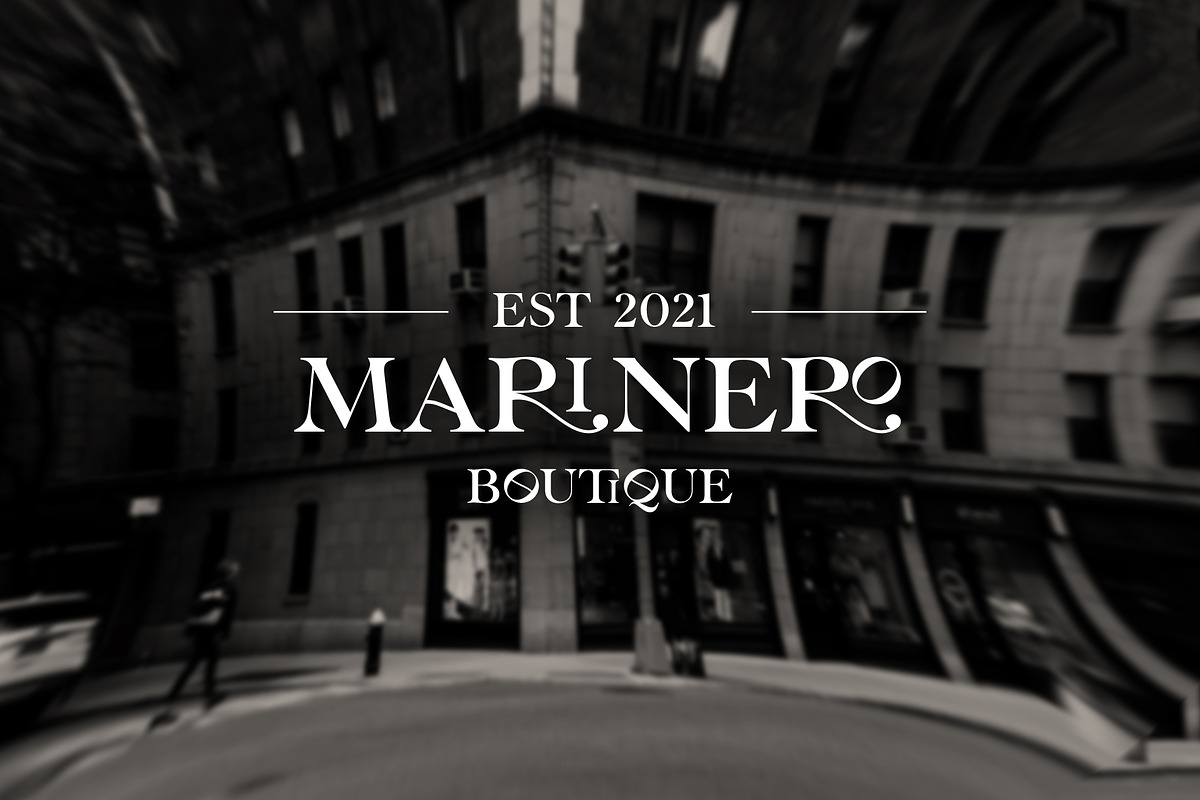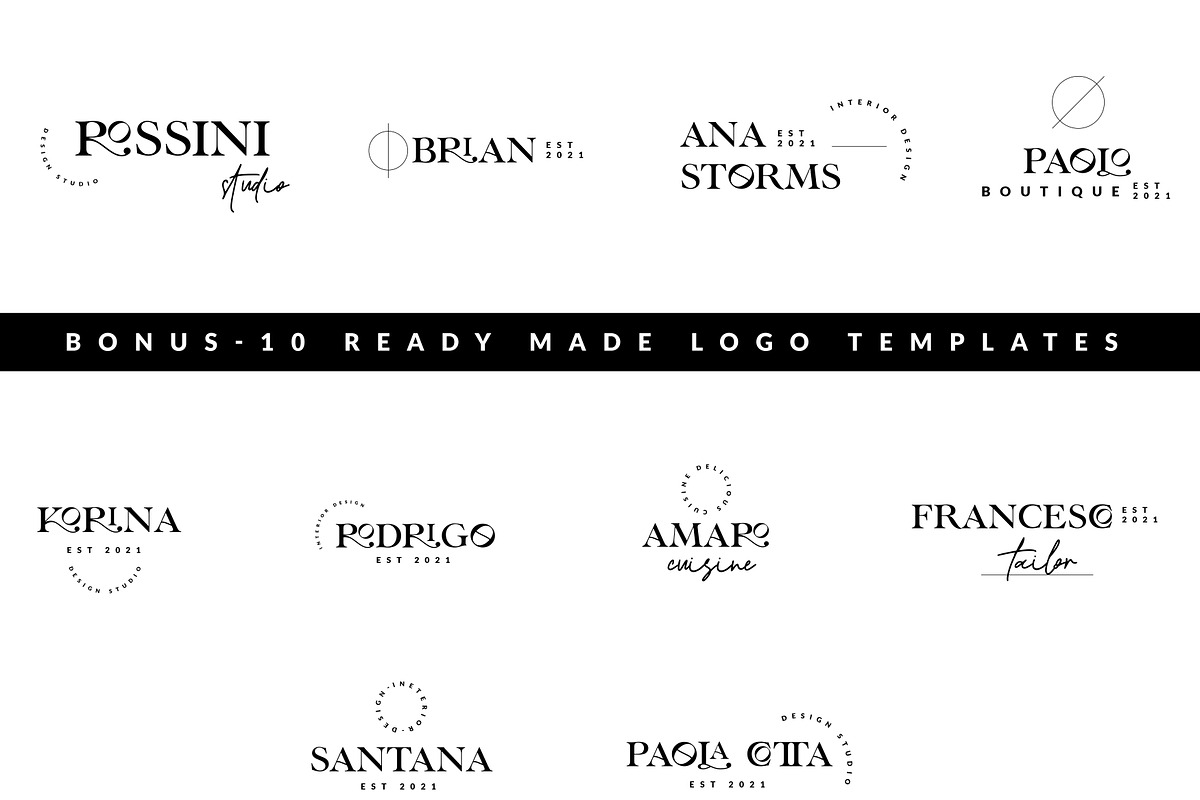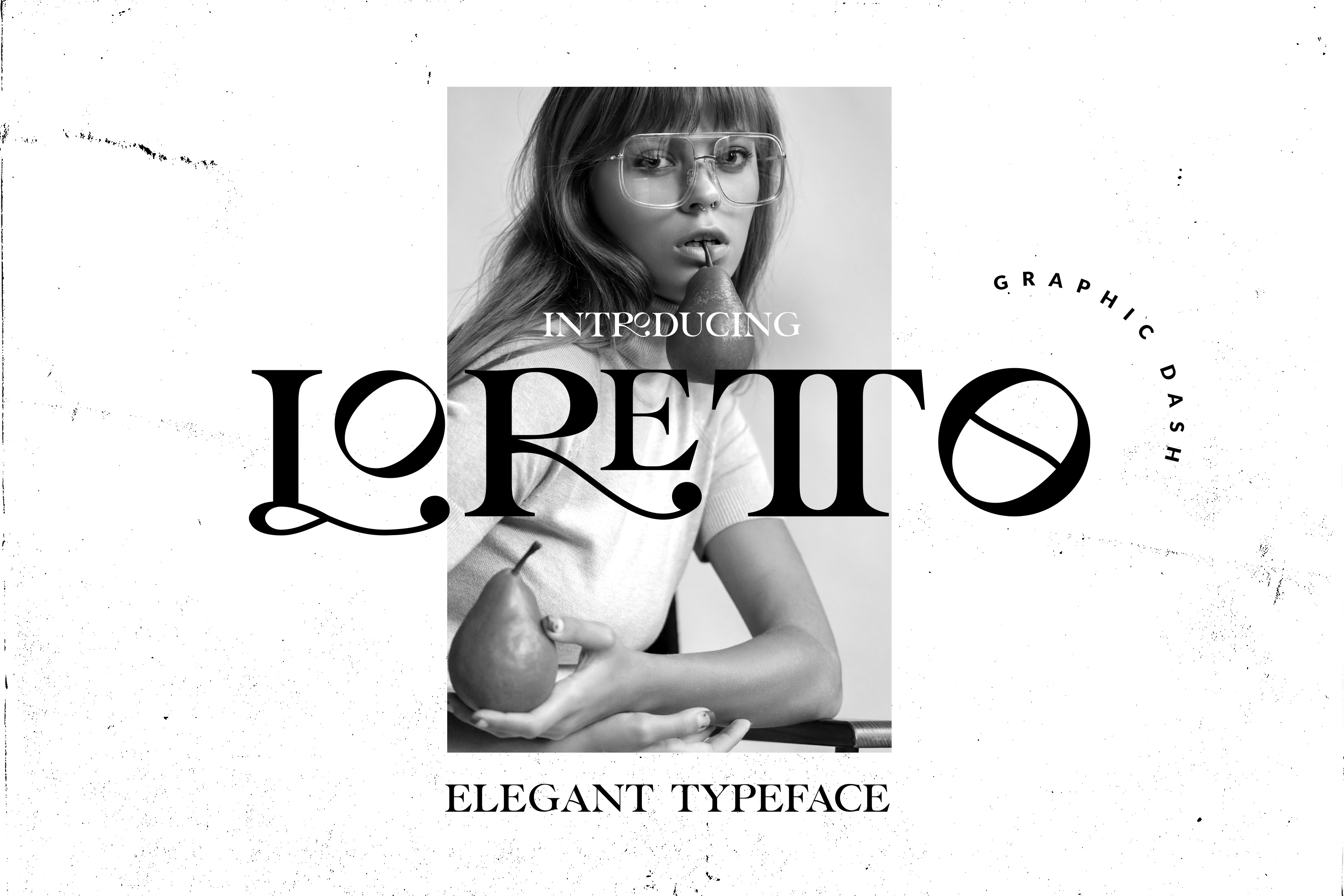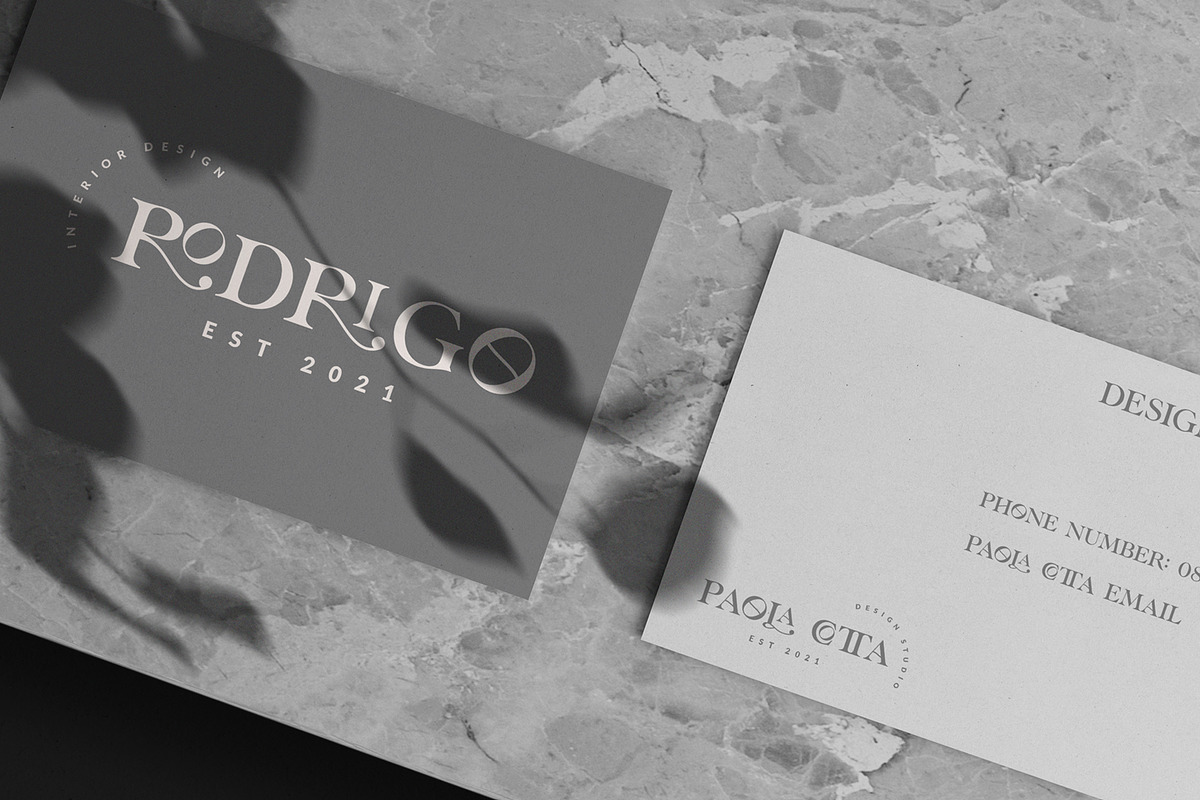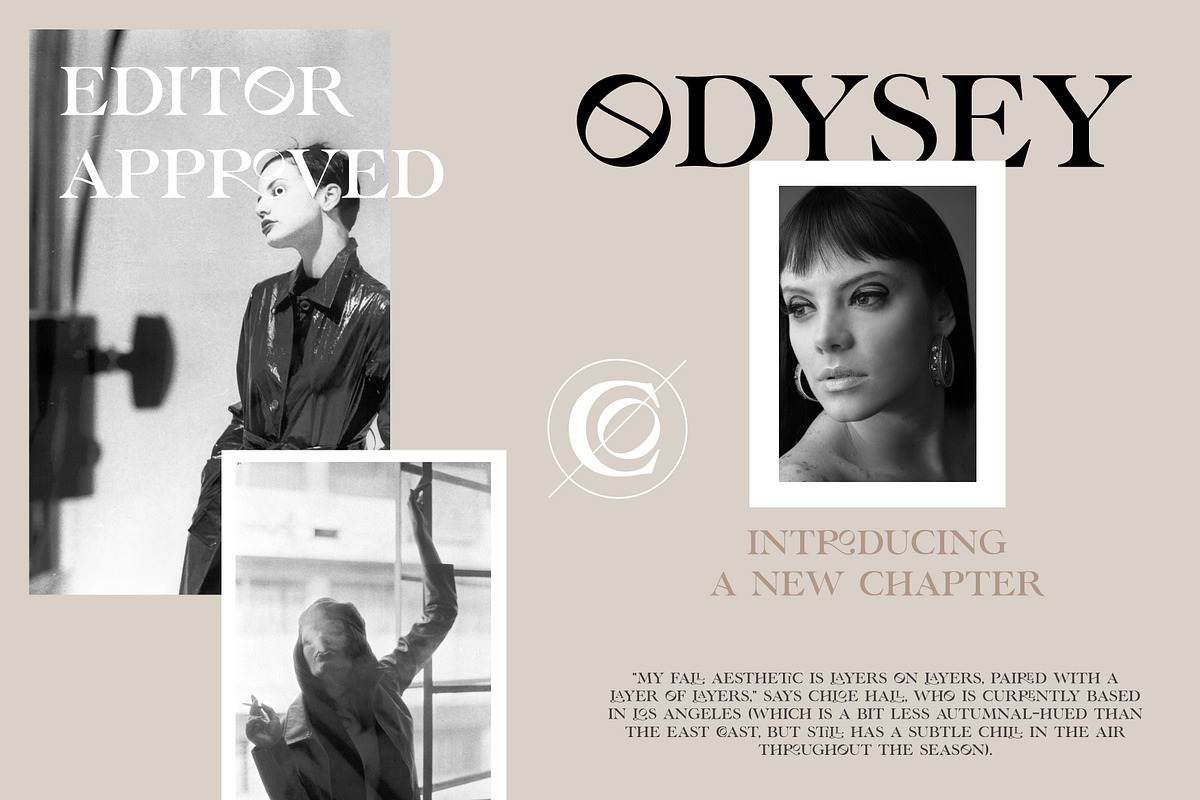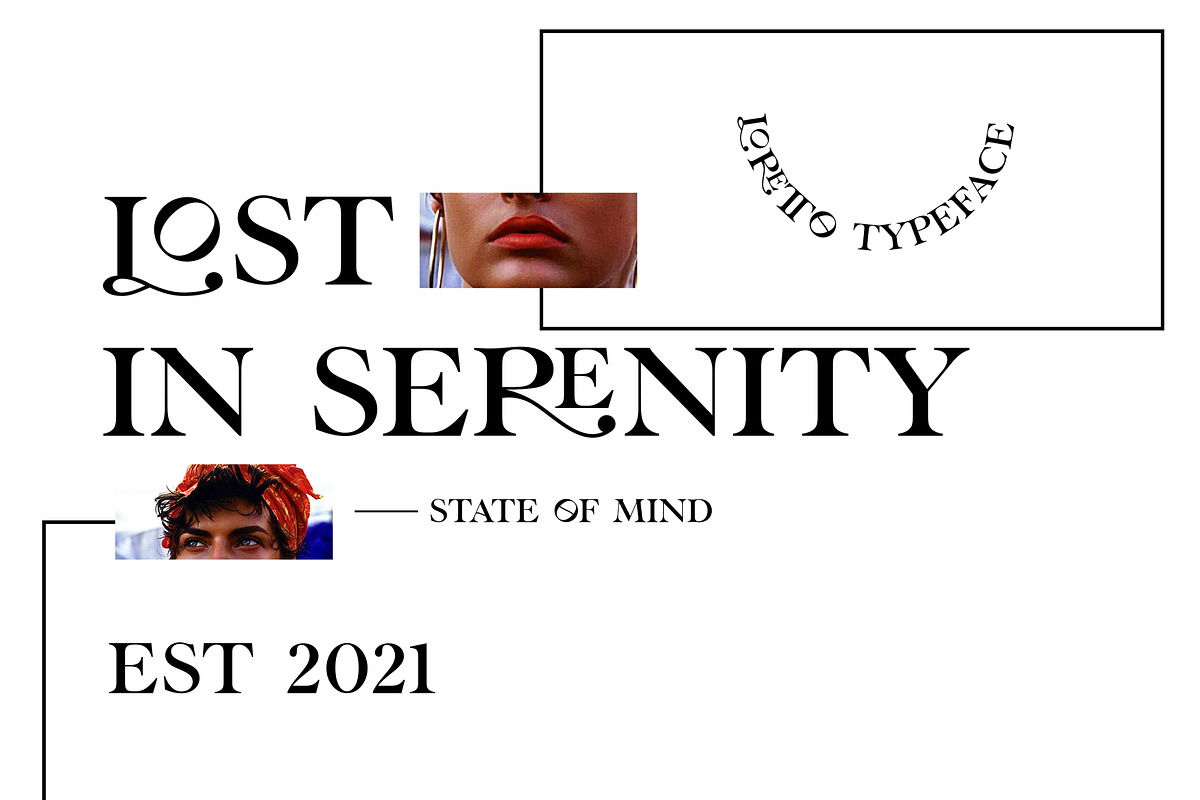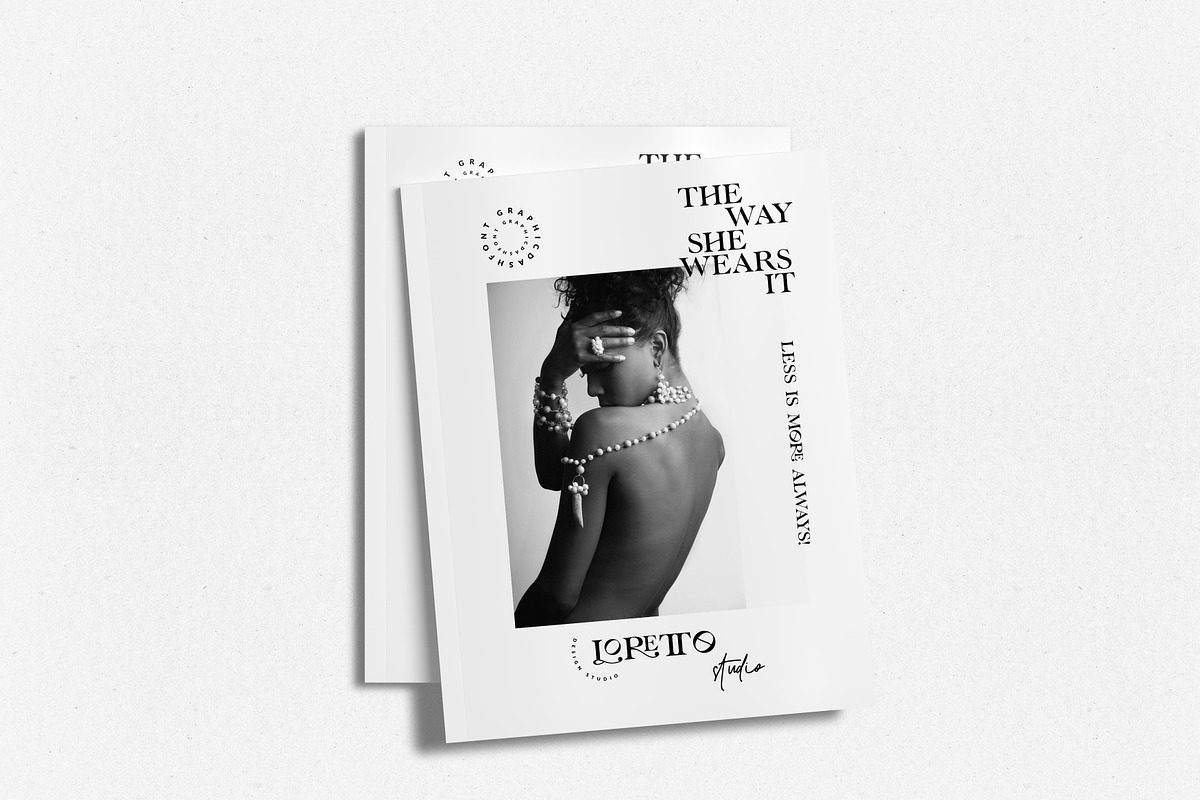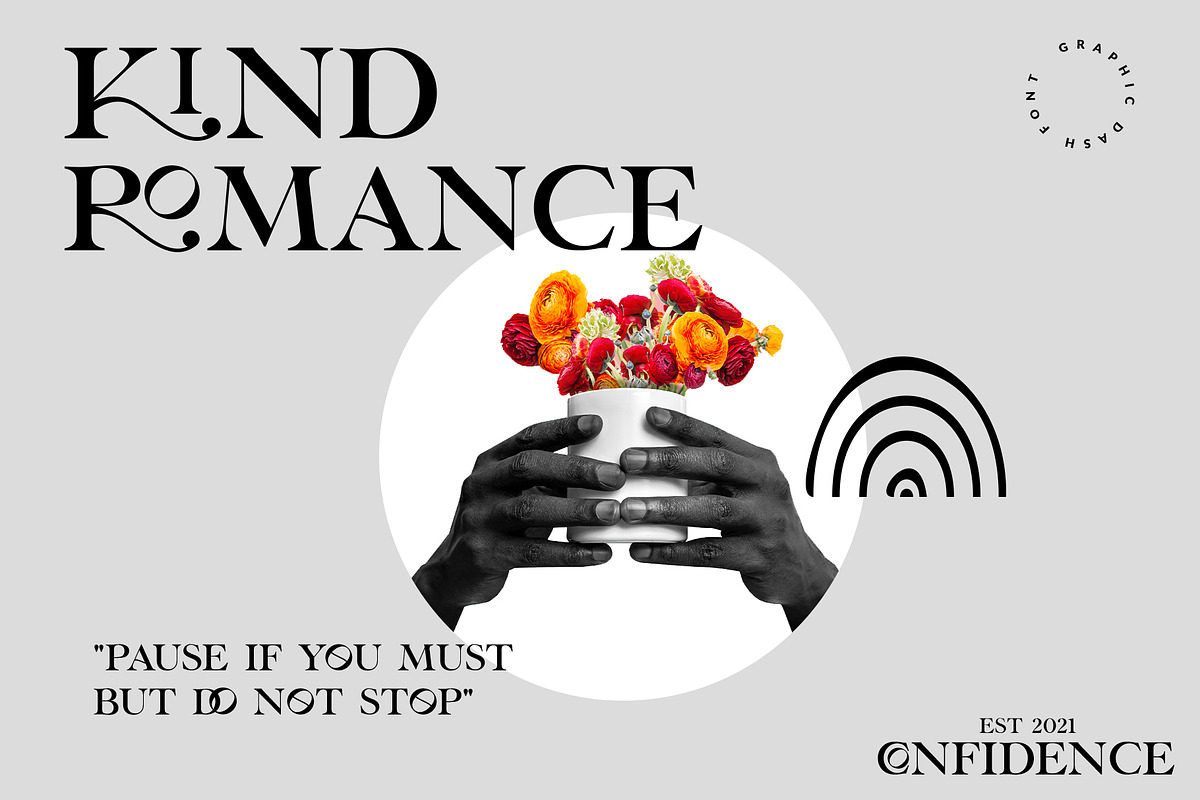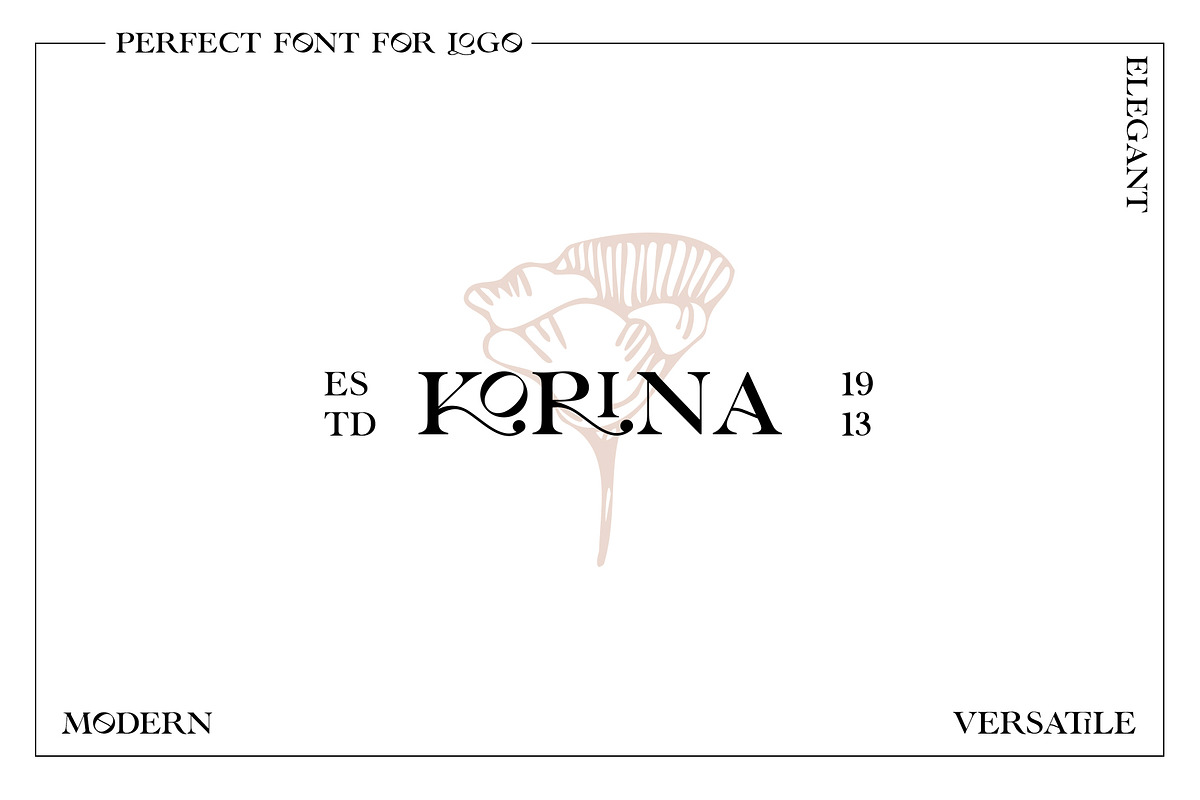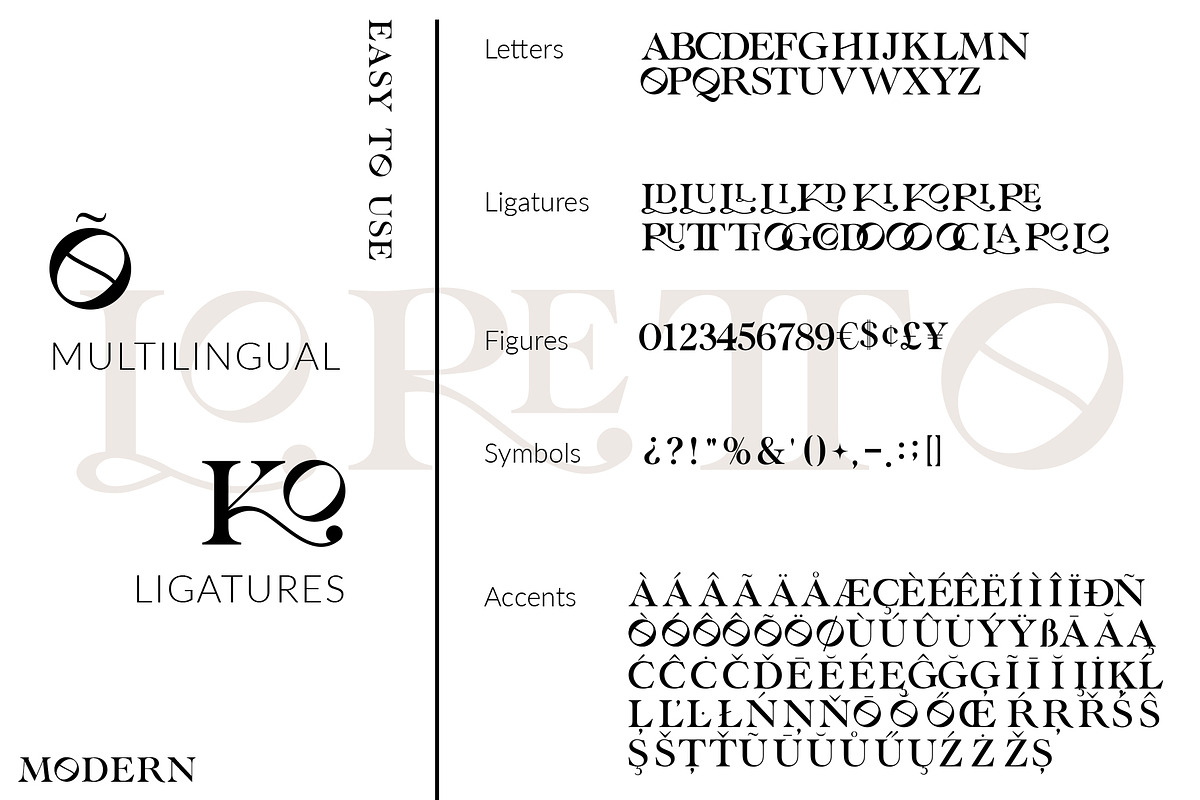
Loretto - Elegant Font + Bonus
Loretto is a versatile, modern, and elegant font. It has a unique style with stylistic, alternates, ligatures, and supports multilingual languages.
Create unique & beautiful logotype, use it as an elegant solution for your next magazine layout, or choose Loretto for any graphics that require a sleek look with an elegant flair.
- Letters/Ligatures, numbers, punctuation & multilingual support.